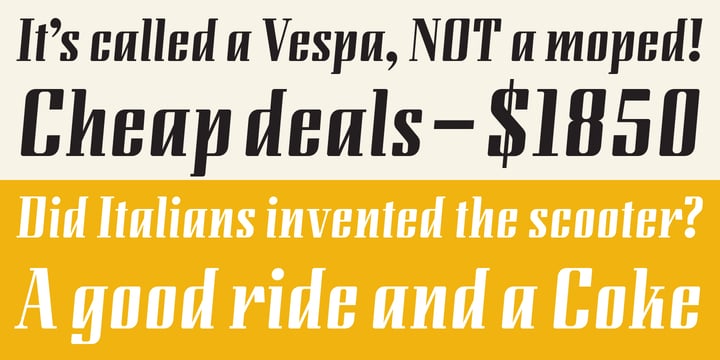
Lunda Modern
Lunda Modern by MAC Rhino Fonts
About Lunda Modern Font Family
Based on the typeface Lunda originally made by
Karl Erik Forsberg
, (1914–1998) in 1941. The name Lunda was a tribute to Berlingska Stilgjuteriet in Lund, a Swedish type foundry (1837–1980) which supported him from the start. The design is close to the original but some significant details have been changed. Several signs are designed from scratch. An additional bold weight has been added.